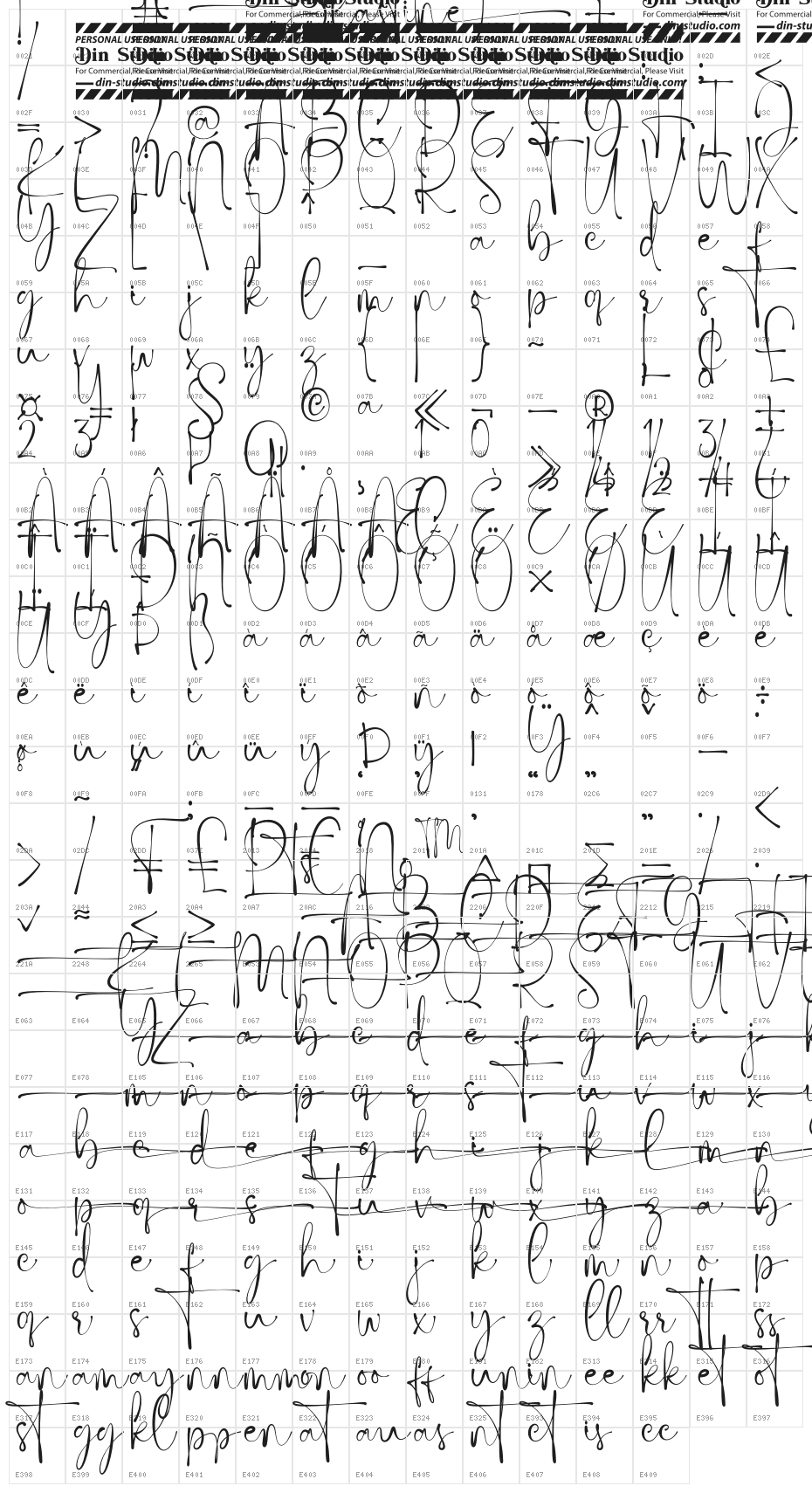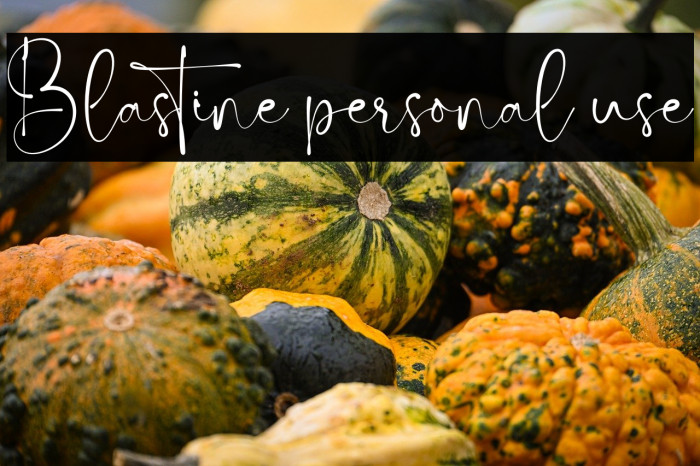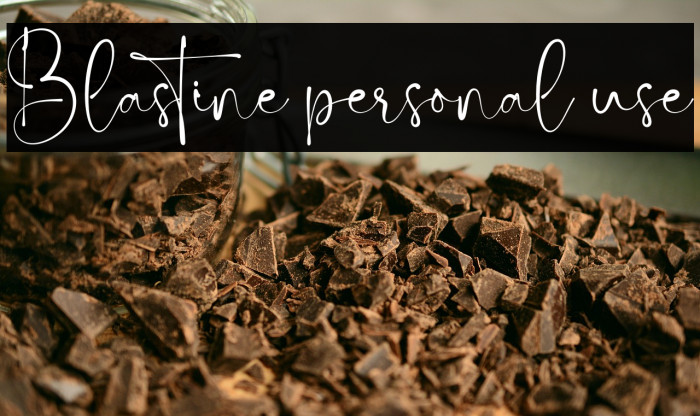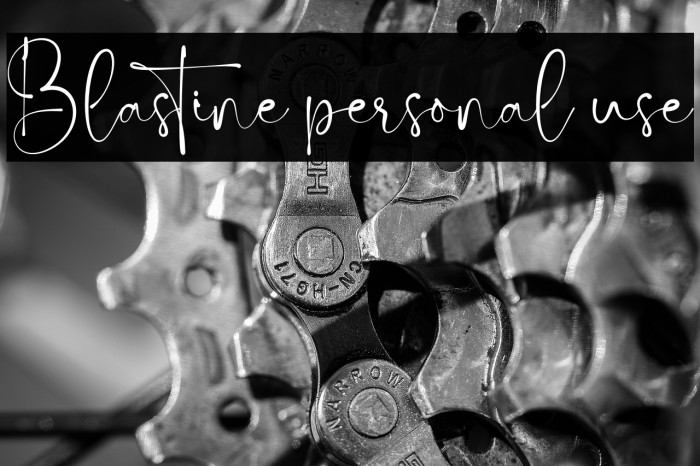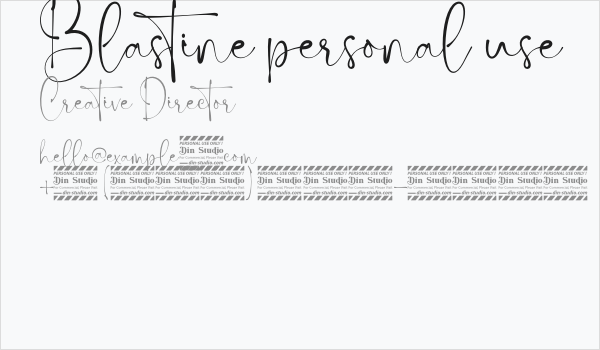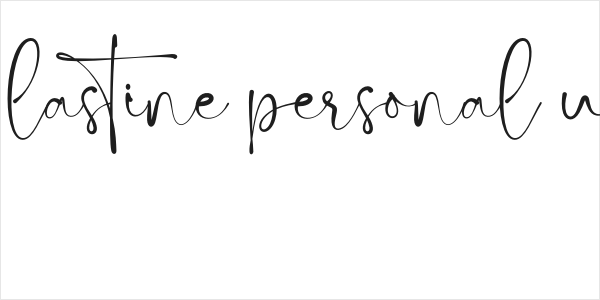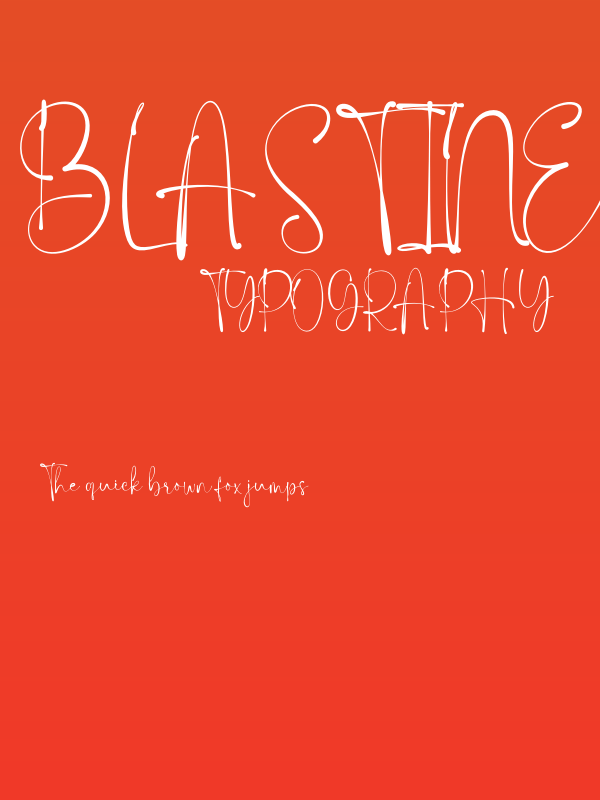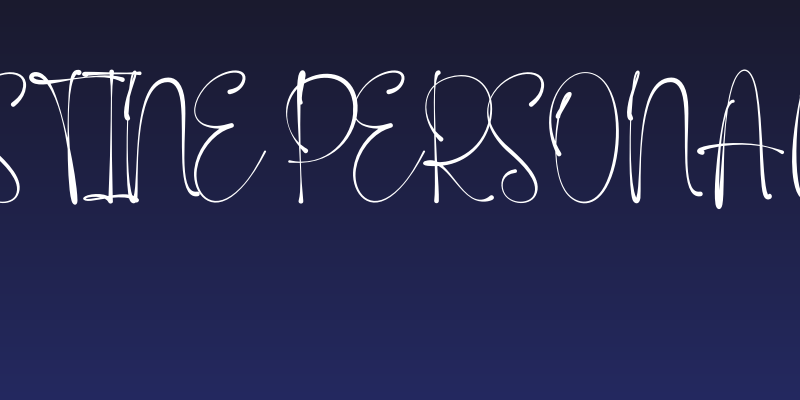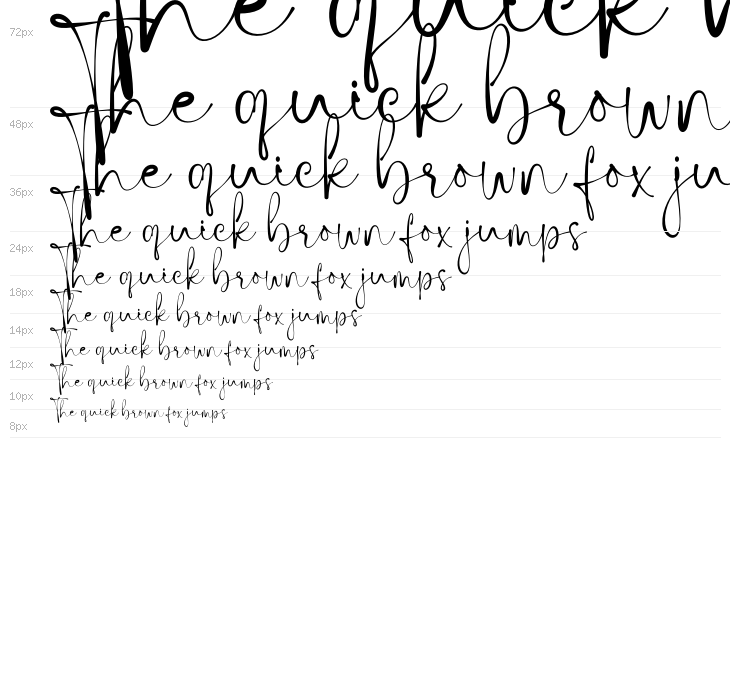
Blastine personal use Font
Blastine personal use Description
This font features an elegant, flowing script style with a handwritten appearance. The uppercase letters are tall and slender, with graceful loops and curves that give them a sophisticated look. The lowercase letters maintain a consistent style, with some characters extending below the baseline, adding to the font's fluidity. The strokes vary in thickness, providing a dynamic contrast that enhances readability while maintaining an artistic flair. This font is ideal for projects that require a personal touch, such as invitations, greeting cards, or branding materials.
Overall StyleElegant, Artistic
Use CaseHeadlines, Invitations, Branding
Proposed ProjectsIdeal for wedding invitations, greeting cards, personal branding, and artistic projects.